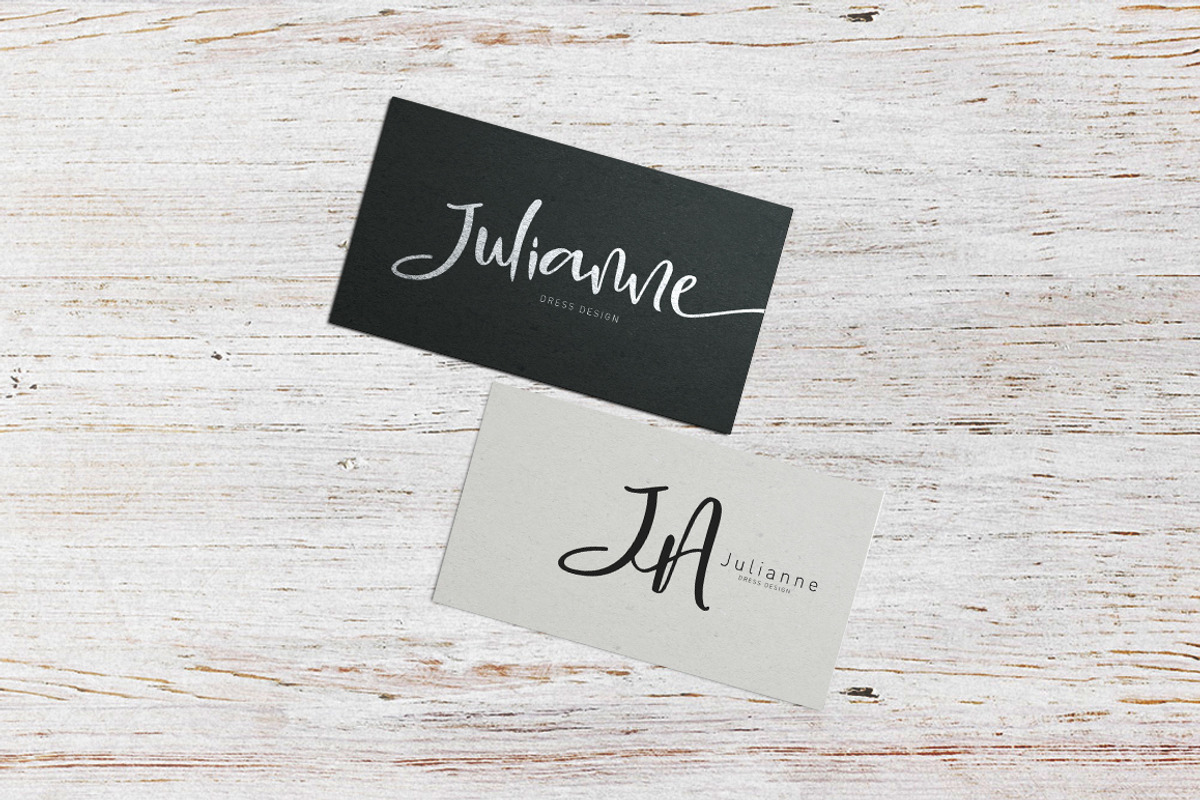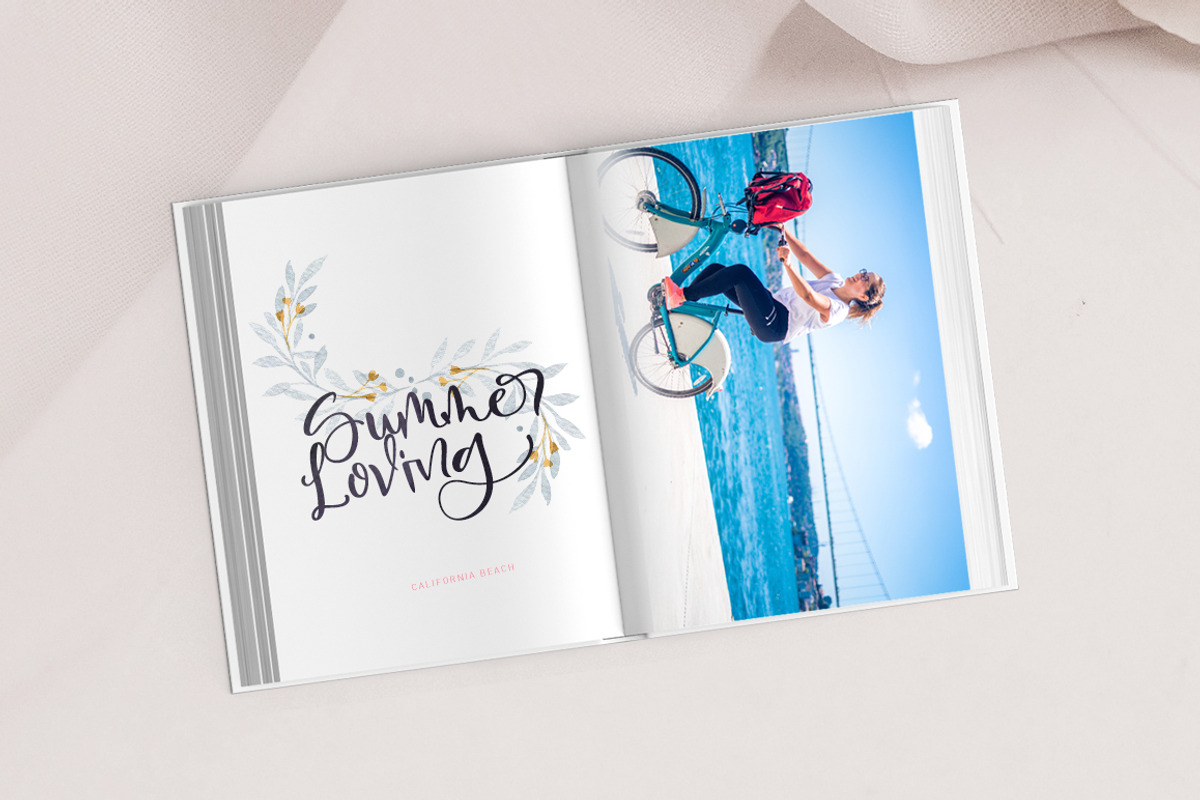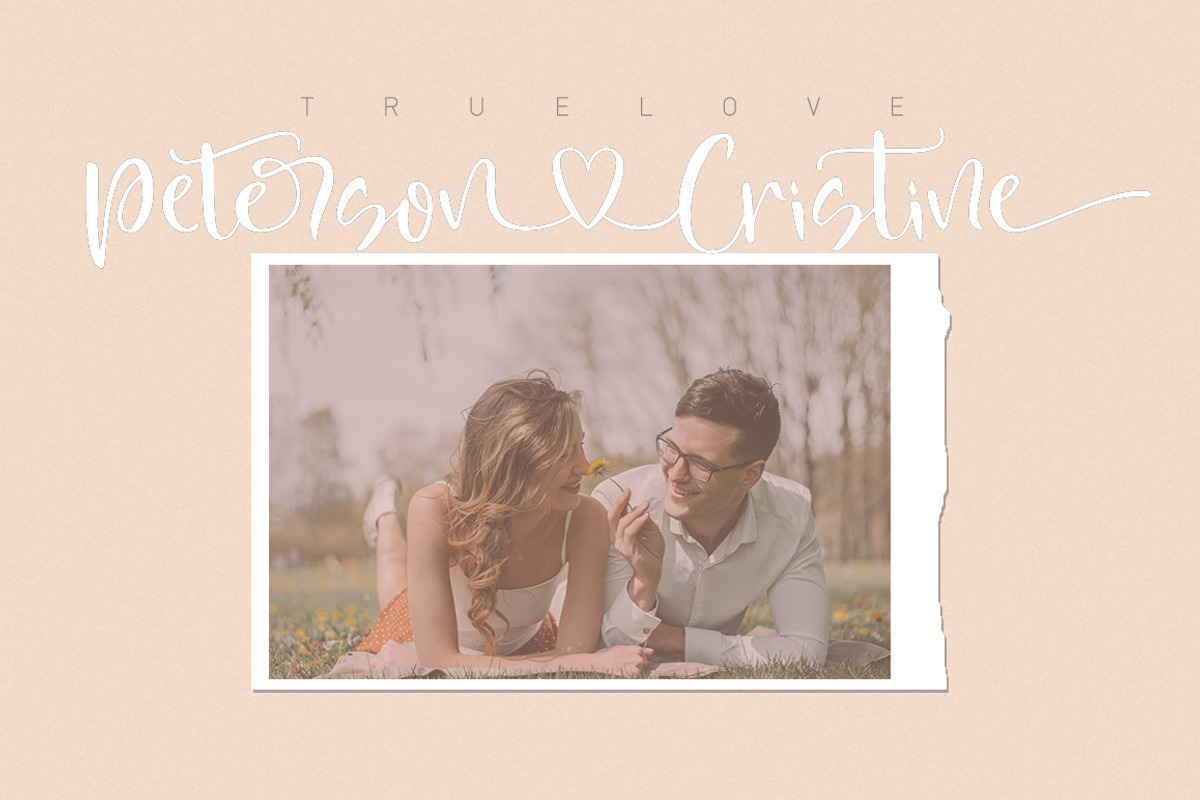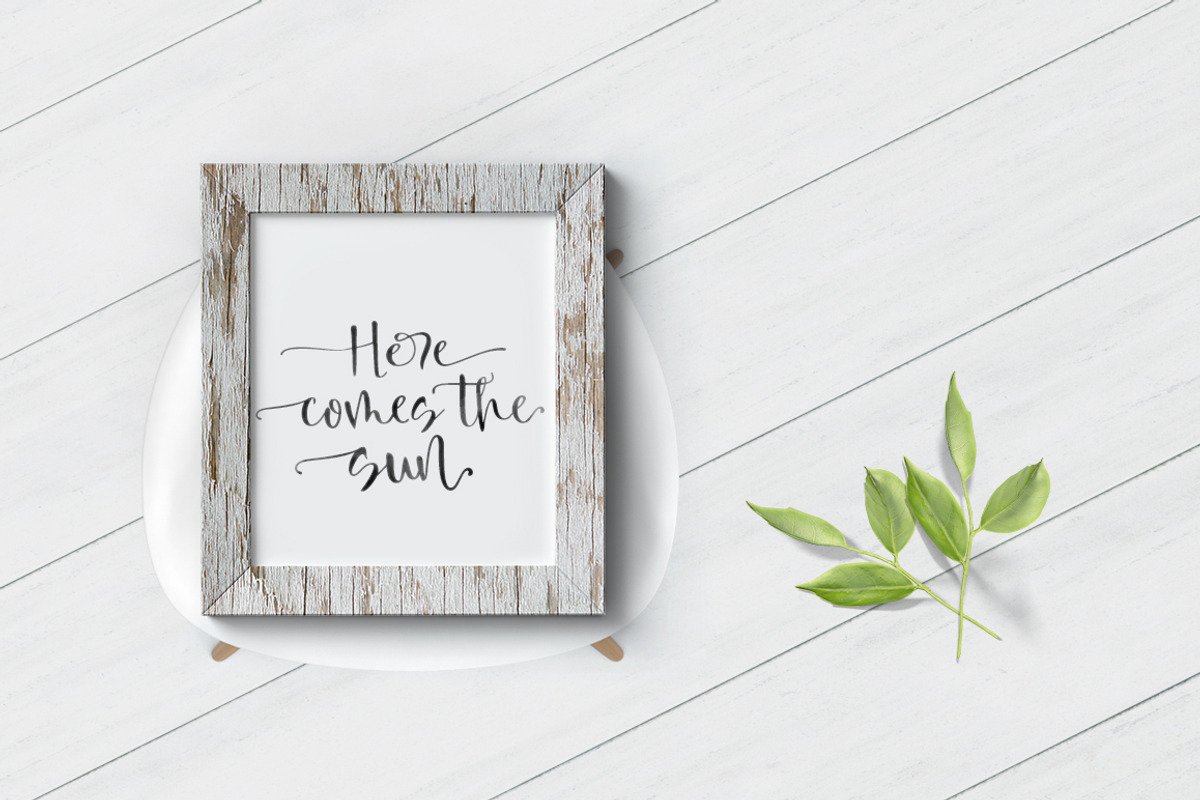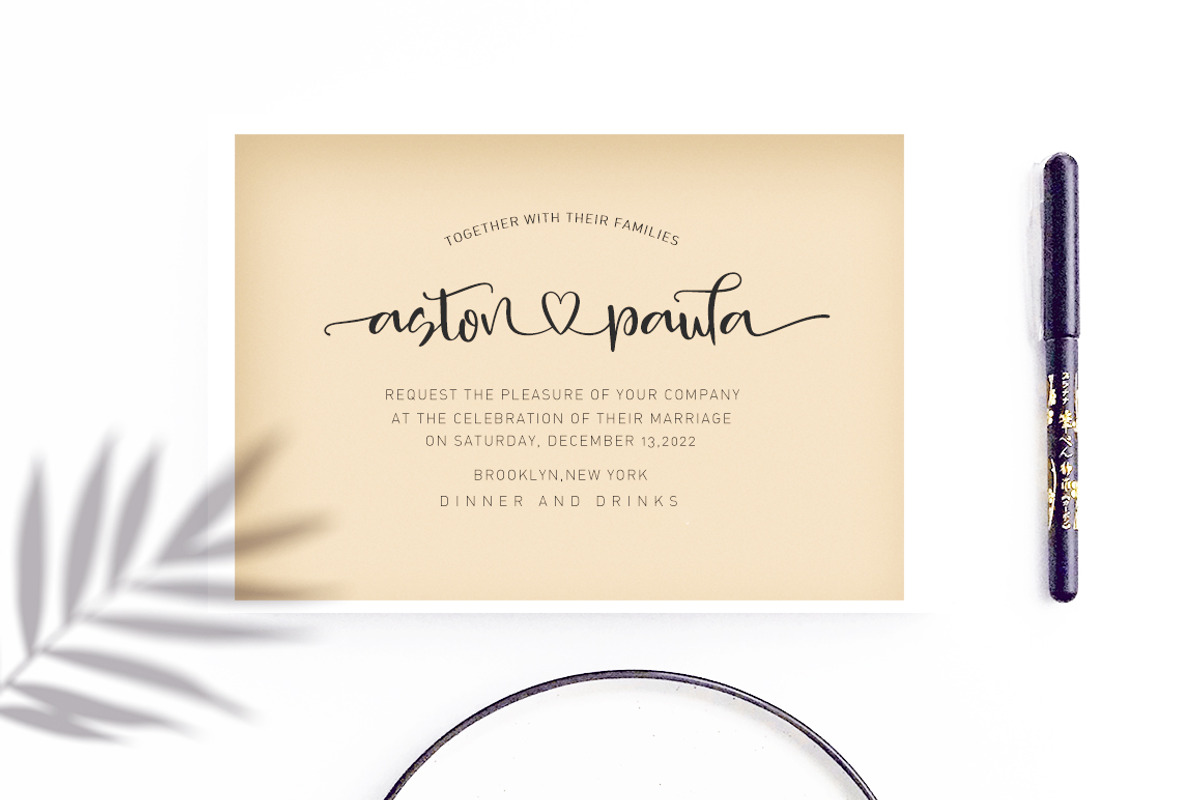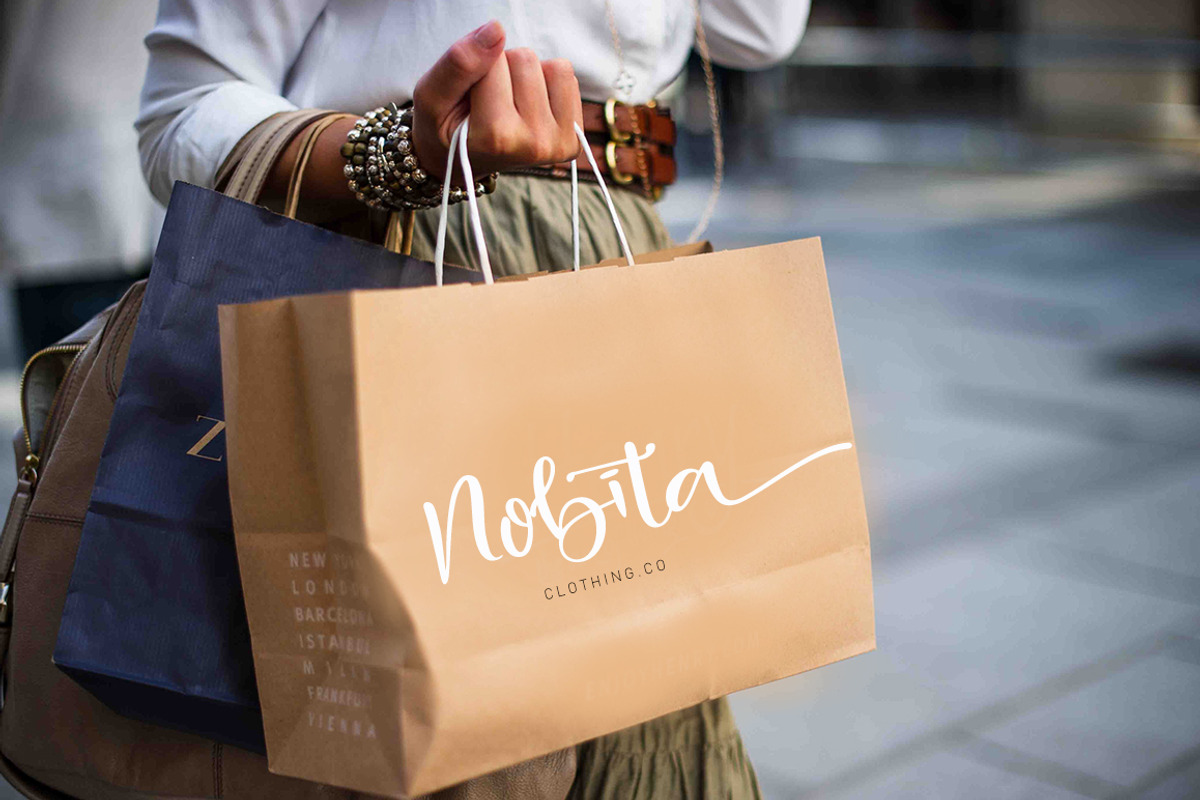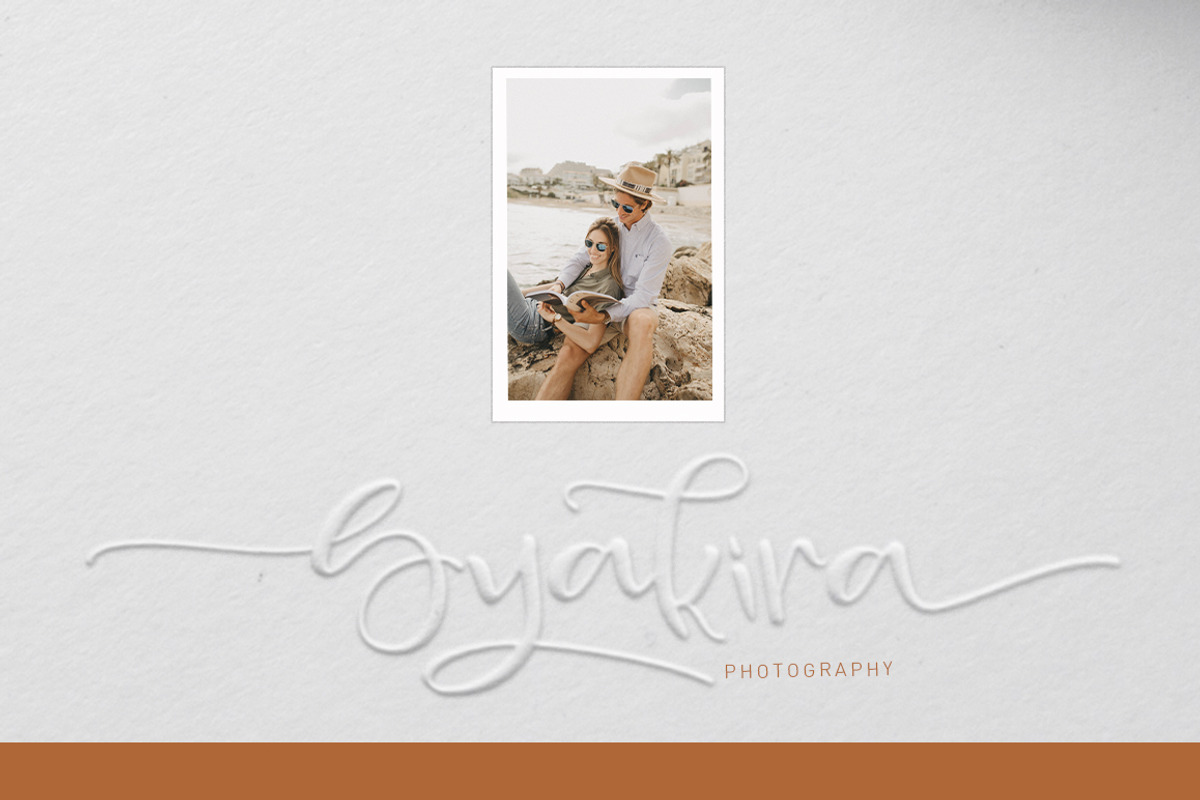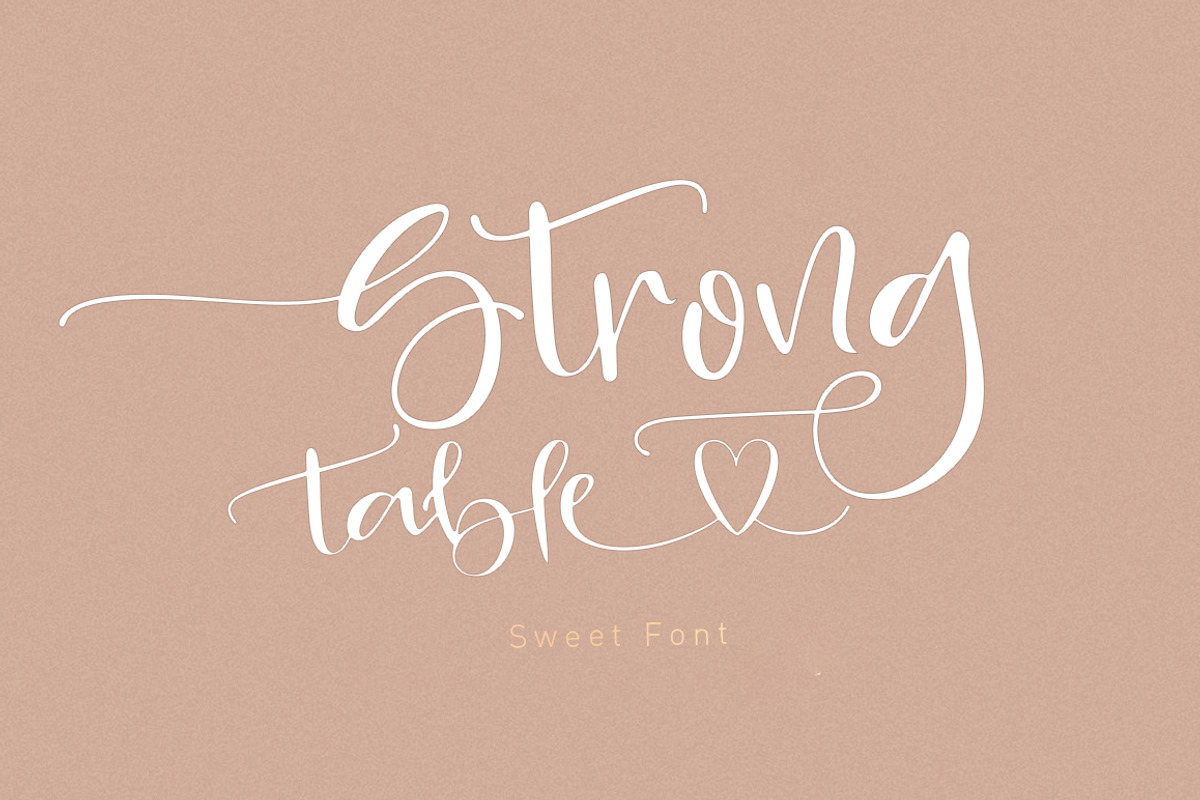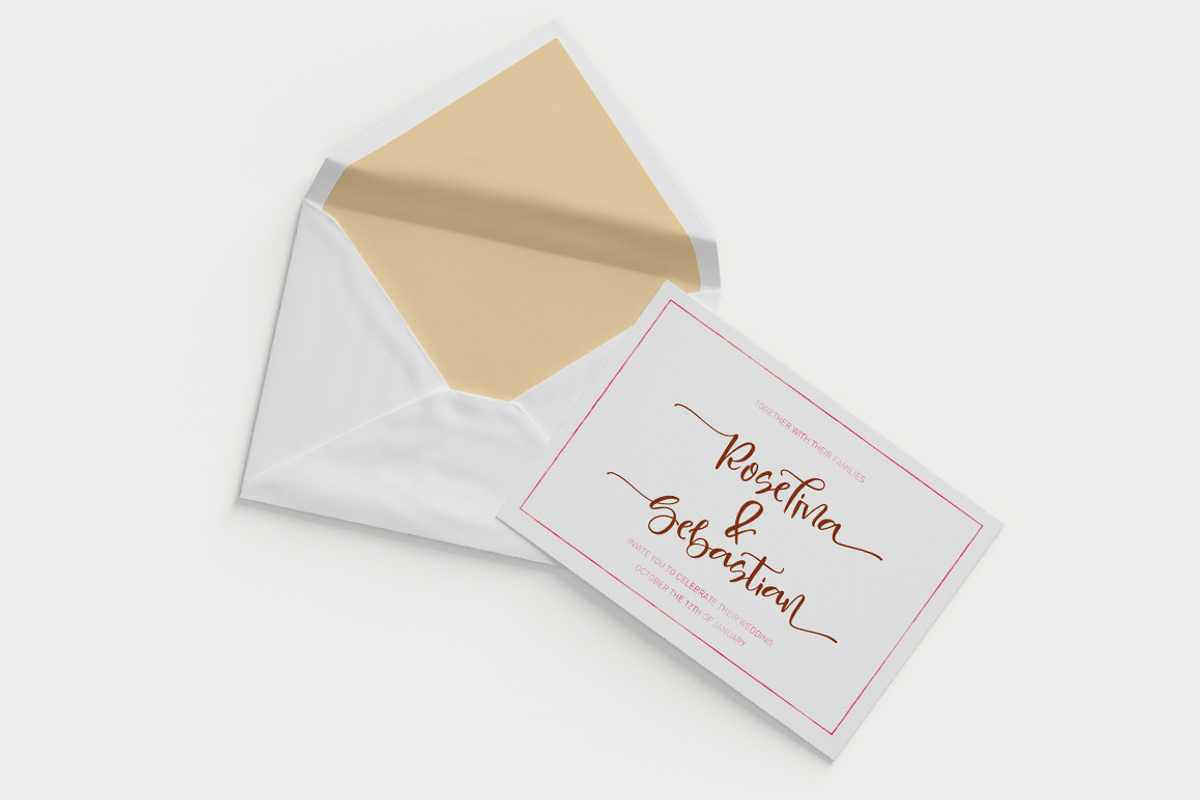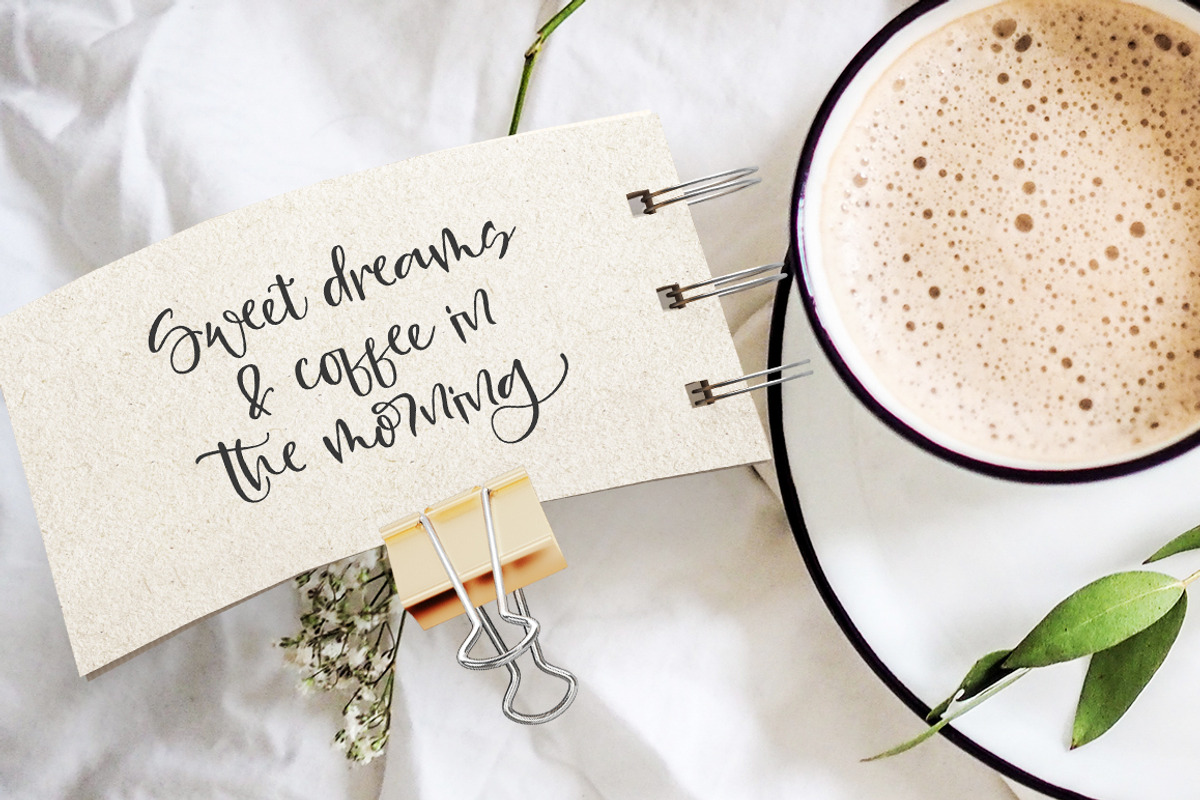
Strong table
Strong table is a lovely, modern calligraphic script. It features dynamic and pretty swashes and can be used for many purpose, such as titles, signatures, logos, wedding invitations, letterhead, signage, labels, newsletters, posters, badges, etc.
Strong table features OpenType, including the initial and terminal letters, ligatures and International support for most Western languages included.